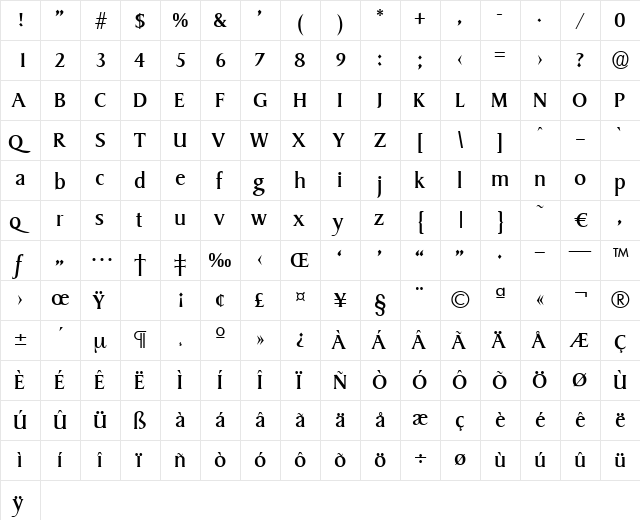
Sydney-Regular Regular
Design Context for Sydney-Regular Typeface
Sydney-Regular offers clean, dependable letterforms without strong stylistic allegiance, making it a practical choice for designers who need flexibility.